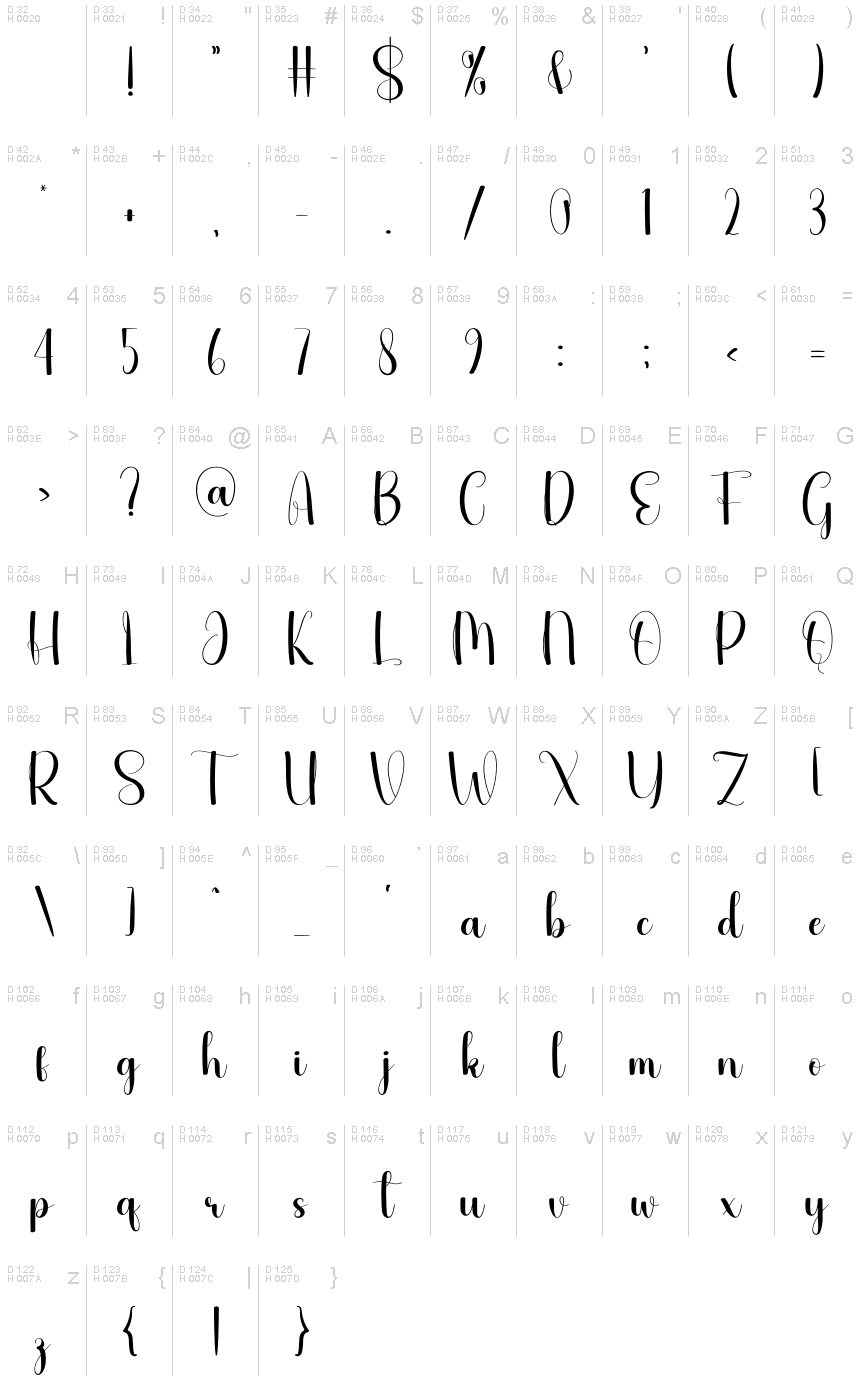
Grill
Grill, a captivating handwritten font designed by Andi Moz, exudes elegance and charm with its distinctive cursive style. Each character flows seamlessly into the next, creating a harmonious rhythm that is both inviting and sophisticated. The font's light, airy strokes coupled with more pronounced curves lend it a graceful and personable feel.
This luxurious font shines in various design contexts—as wedding invitations, upscale branding projects, creative logos, or elegant social media graphics. Its unique blend of refinement and approachability makes Grill an excellent choice for designers seeking to add a touch of sophistication while maintaining readability and warmth.